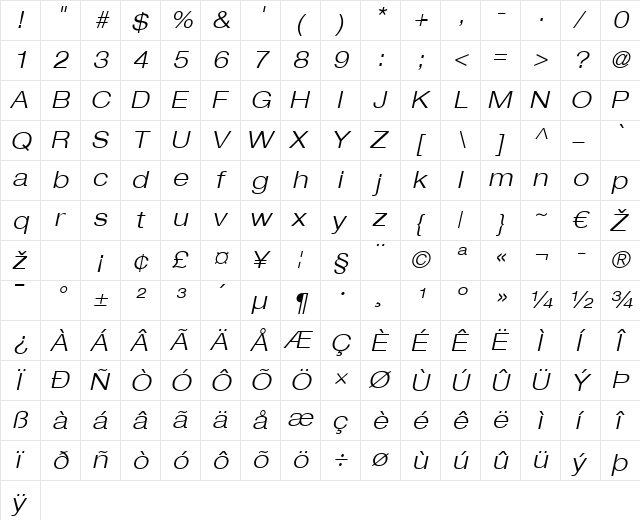
HelveticaNeue LT 43 LightExObl Regular
Design Context for HelveticaNeue LT 43 LightExObl Typeface
HelveticaNeue LT 43 LightExObl is a composed and adaptable typeface that performs quietly and consistently across a wide range of design contexts. The delicate stroke weight brings airiness and refinement to layouts.